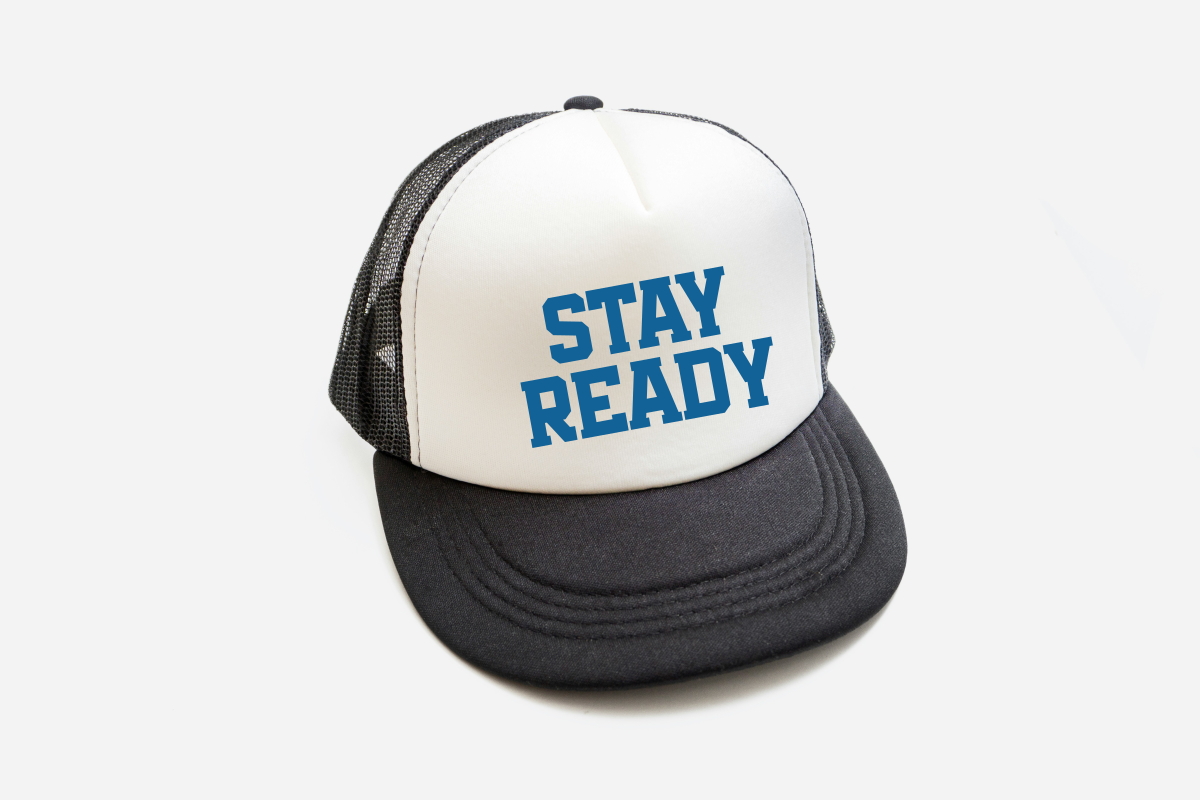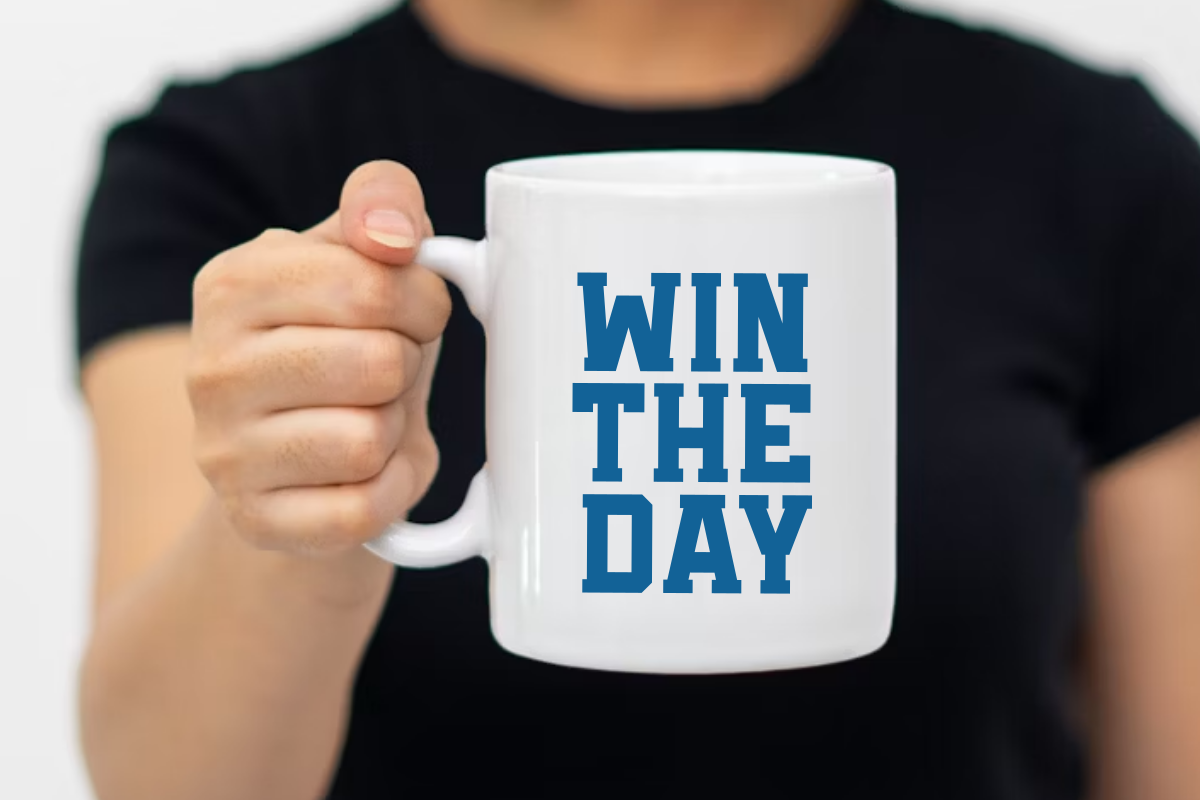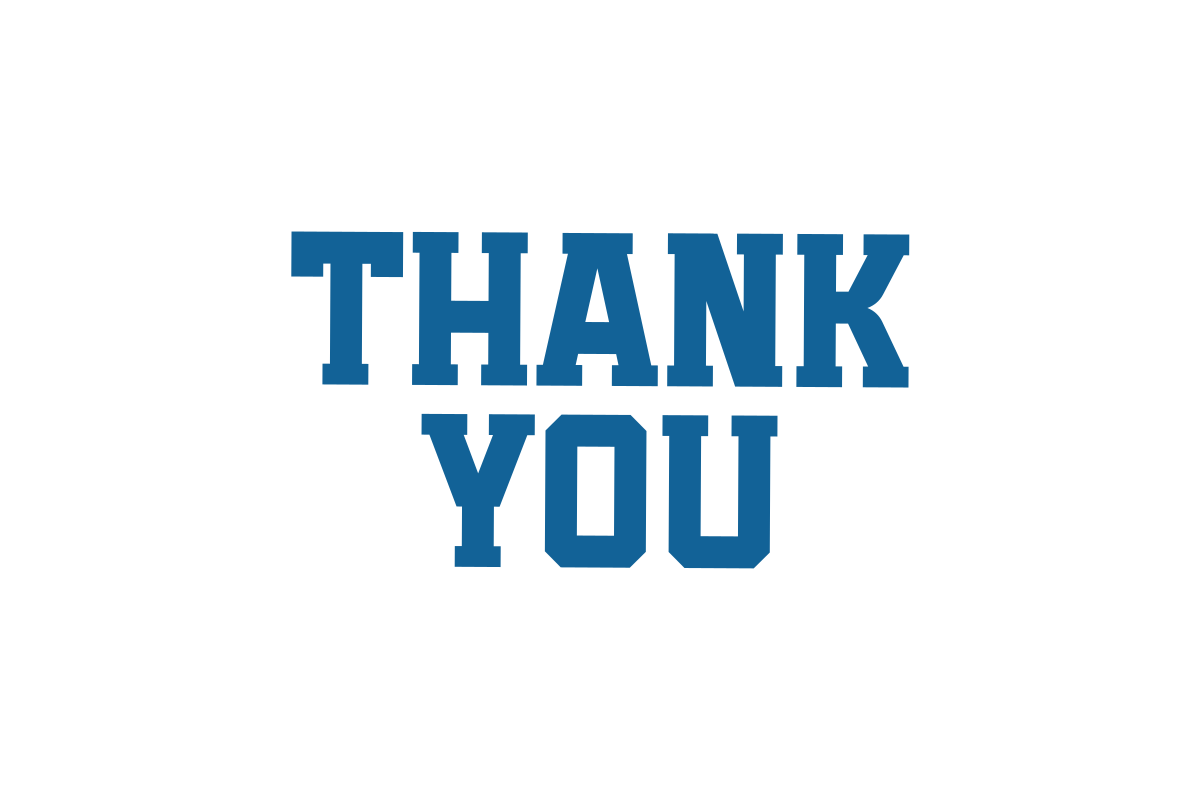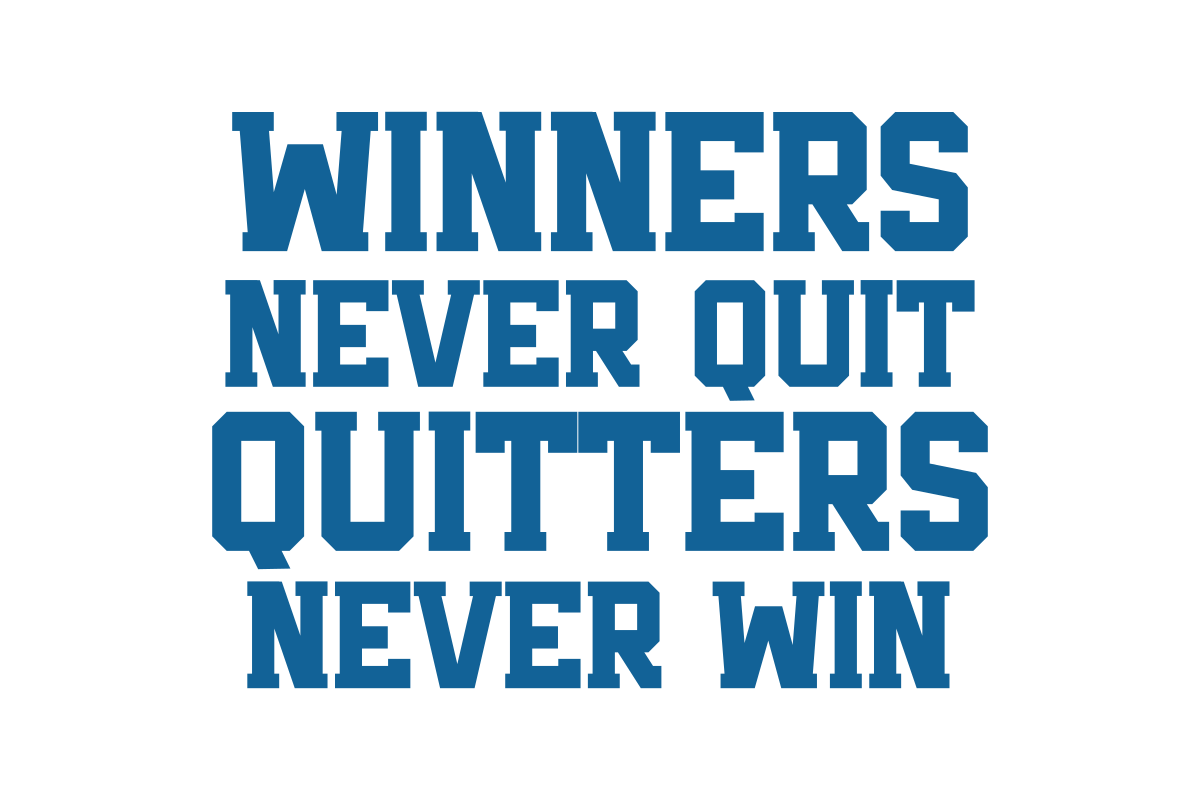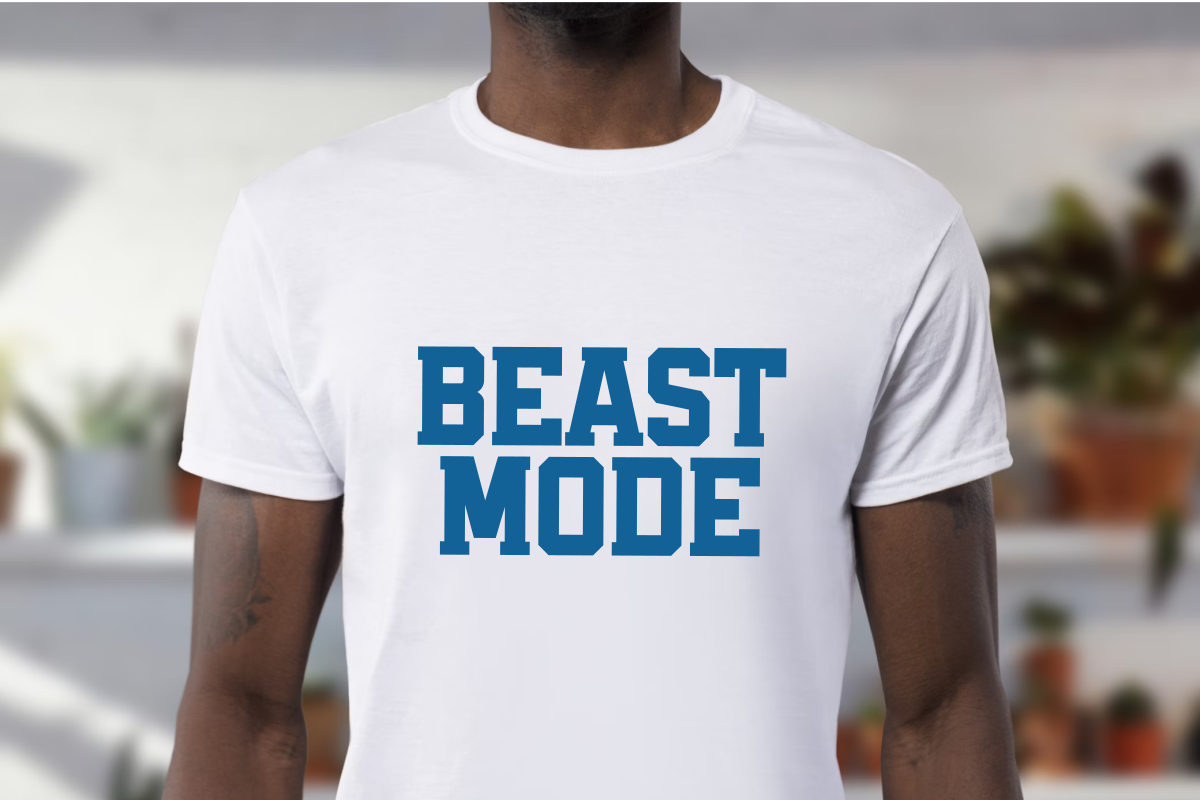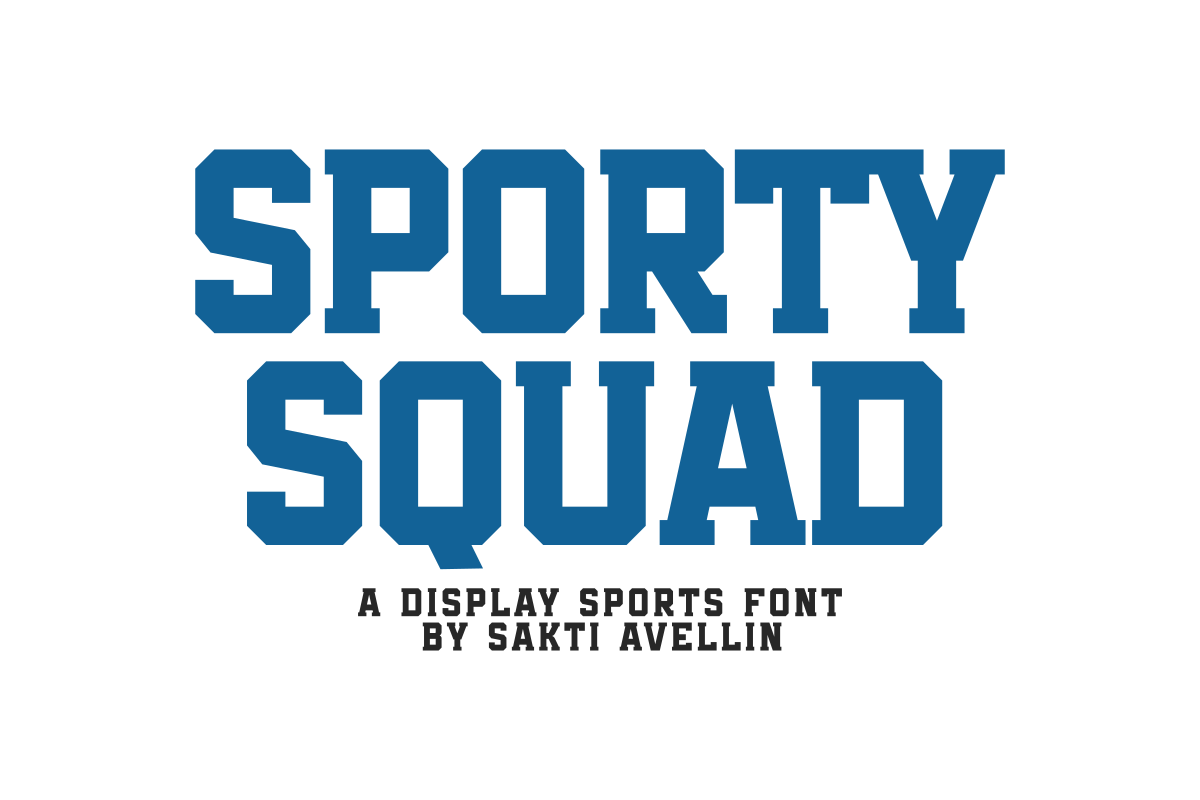
Sporty Squad - Display Sports Font
Sporty Squad is a powerful and bold display sports font designed to bring an authoritative athletic energy to your creative projects. This sturdy slab serif typeface features heavy block letters and clean, geometric lines, making it the perfect choice for team branding, university-style apparel, jersey numbers, stadium posters, and high-impact headlines. Its commanding presence ensures it stands out as a leading athletic display font for sports marketing and competitive event graphics, ideal for designers seeking a professional campus look. Win every design challenge with the competitive spirit of Sporty Squad!